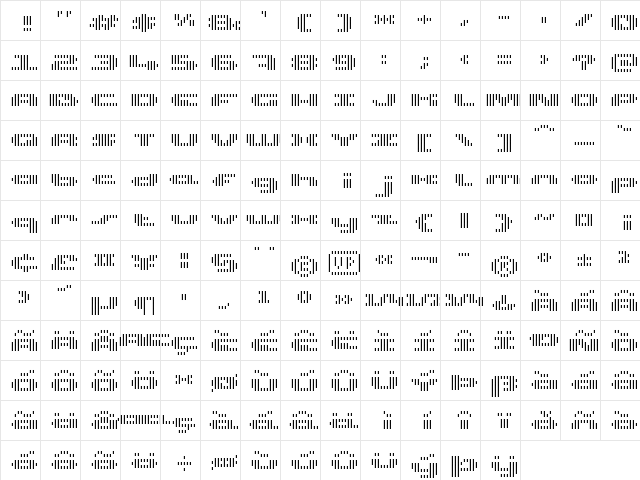
UP Tiny lcd four 8 decoV Light
| Foundry | UrbanPixel |
| Designer | Michel Troy - from Montreal |
Design Context for UP Tiny lcd four 8 decoV Typeface
UP Tiny lcd four 8 decoV is a composed and adaptable typeface that performs quietly and consistently across a wide range of design contexts. Its slender proportions lend an understated elegance to any composition.